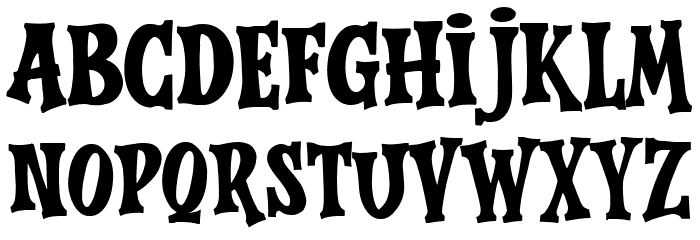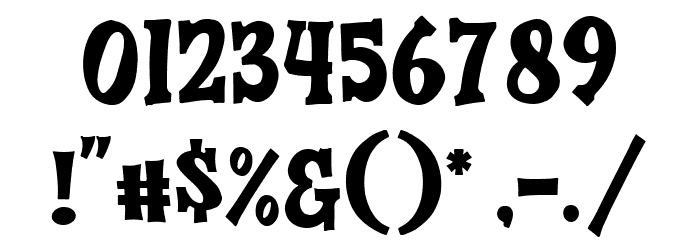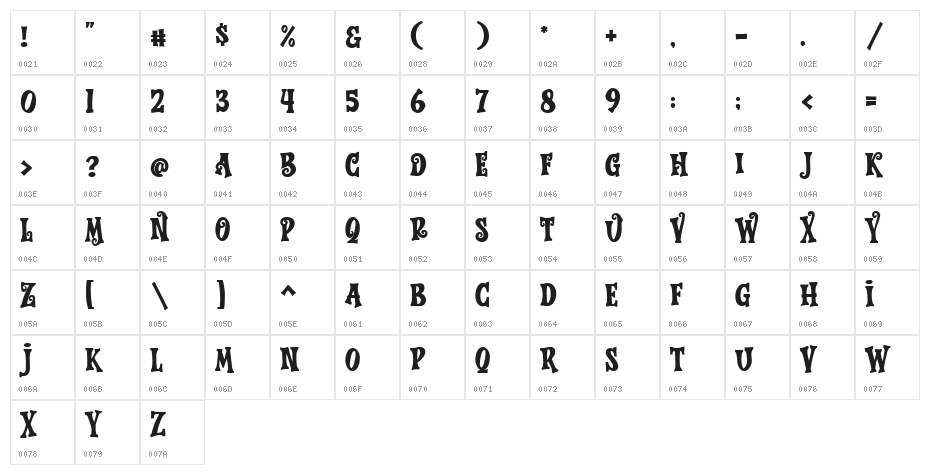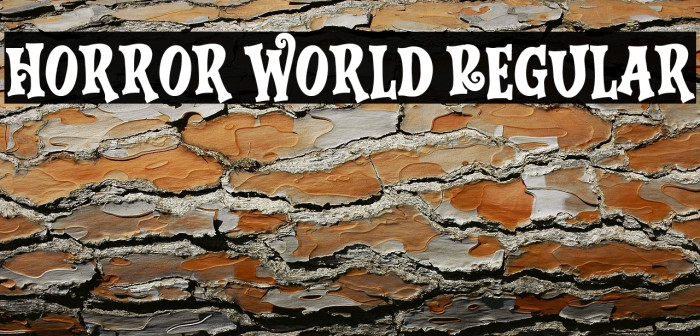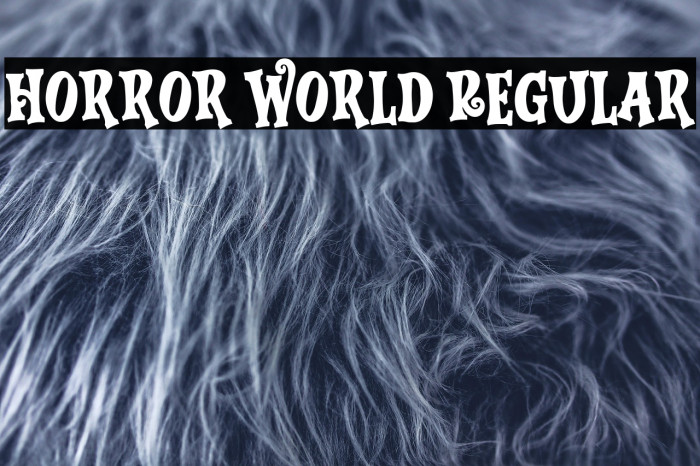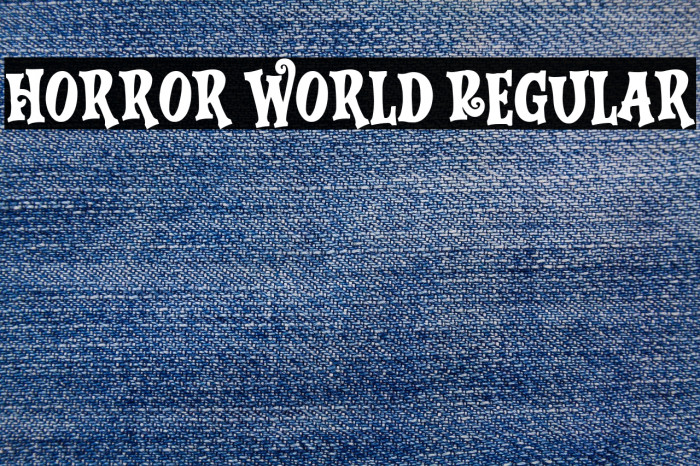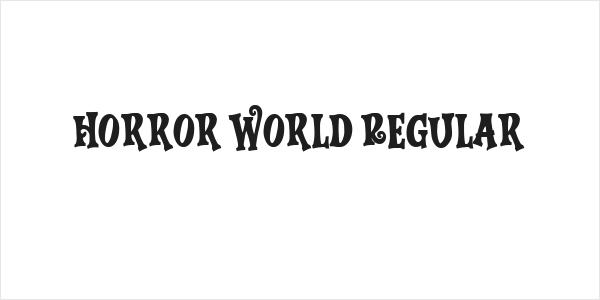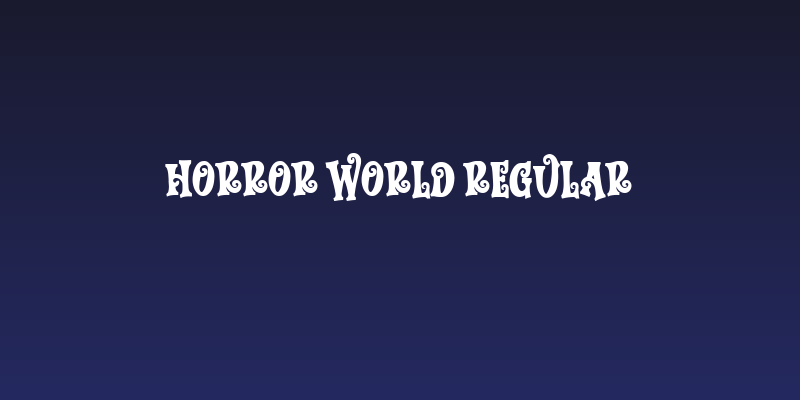
Horror World Regular Font
This font features a bold and dramatic style with exaggerated serifs and whimsical curves, creating a sense of mystery and intrigue. The letters are thick and heavy, with a playful yet eerie appearance, making it ideal for themes related to horror or fantasy. The uppercase and lowercase letters maintain a consistent style, with unique flourishes that add character to each glyph. Numbers and special characters are designed to match the overall aesthetic, ensuring a cohesive look across all text elements.
A bold, whimsical font with dramatic serifs and an eerie, playful style.
- Proposed Projects: Perfect for Halloween-themed designs, horror movie posters, spooky invitations, and fantasy book covers.